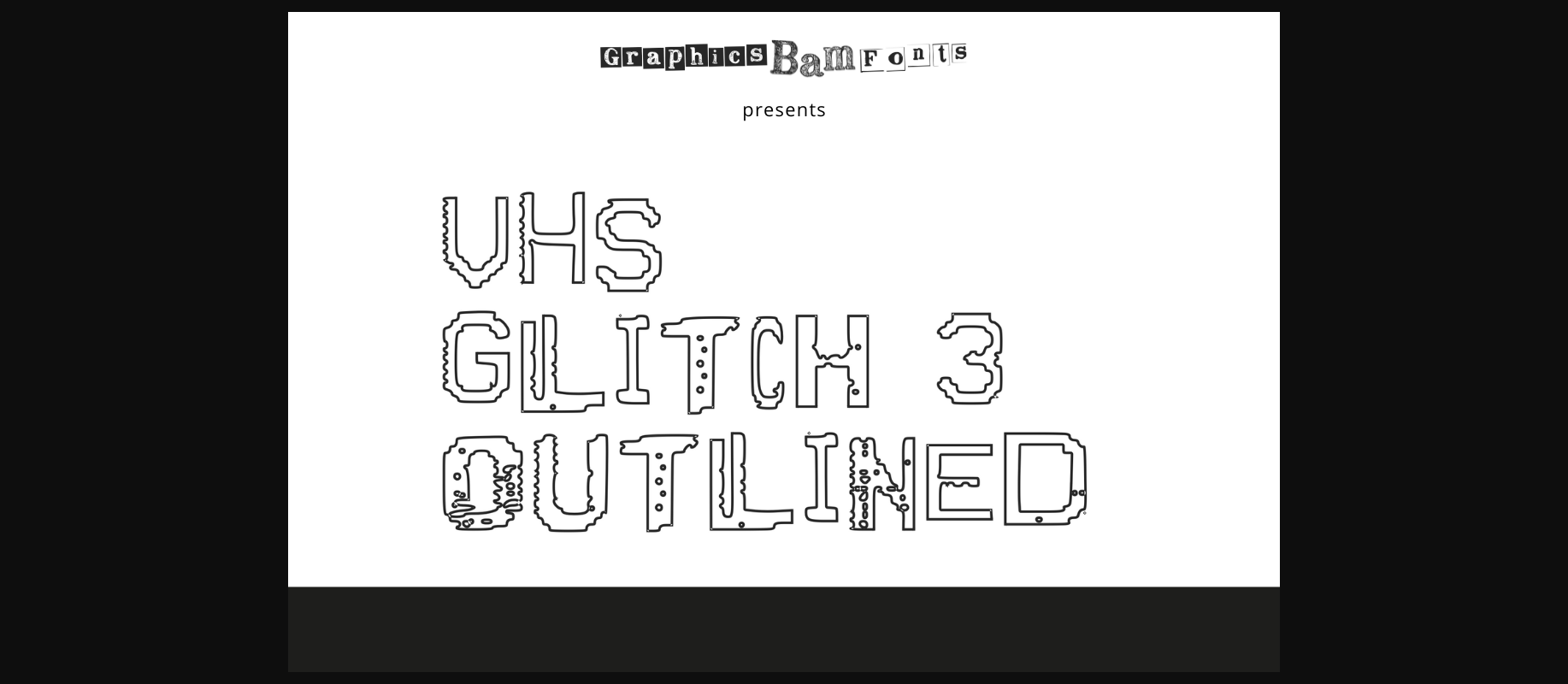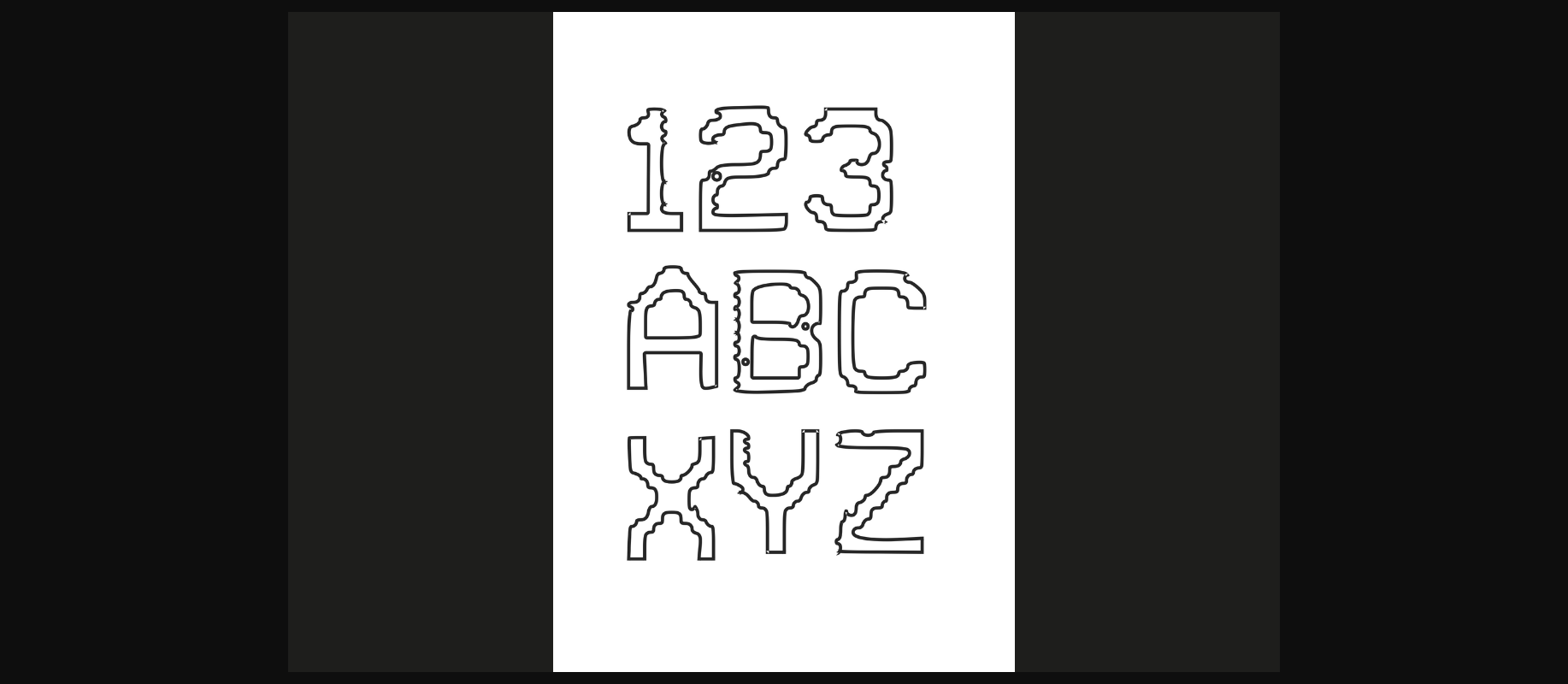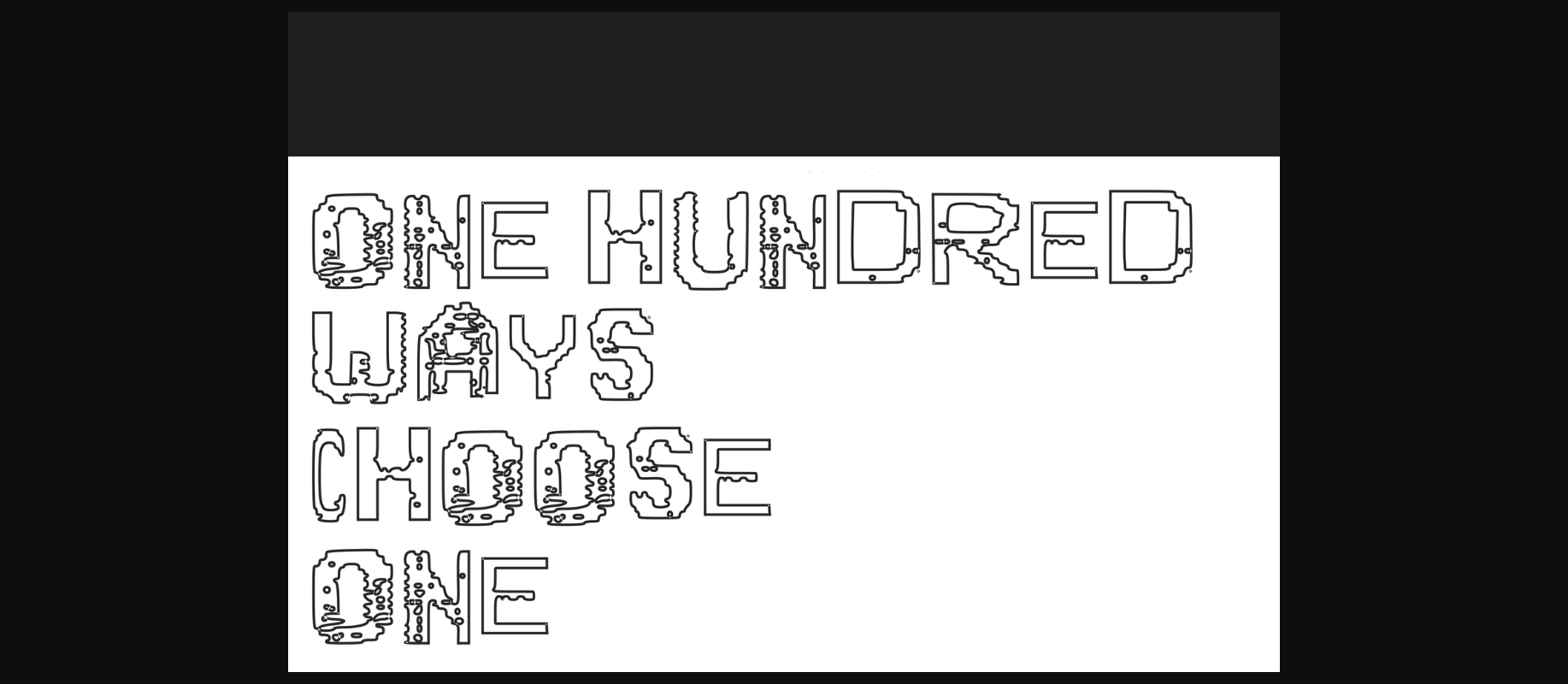
About VHS Glitch 3 Outlined Font
VHS Glitch 3 Outlined is a glitched screen typeface.
Its distorted feel makes it an ideal font for any hacker, web nerd, or glitch art lover! Get creating, get glitching! This is only one of five weights in this VHS 3 series of glitch families. Get them all and complete your set with VHS 1 & 2 which boast 6 more styles each!